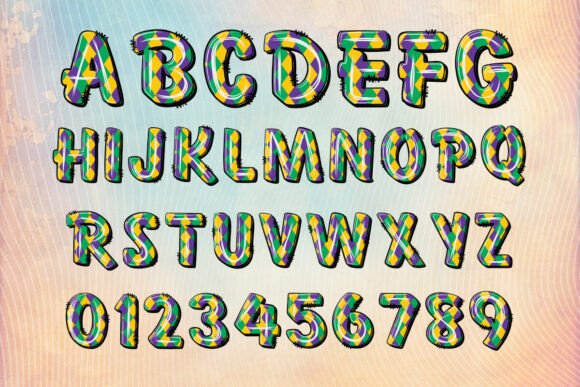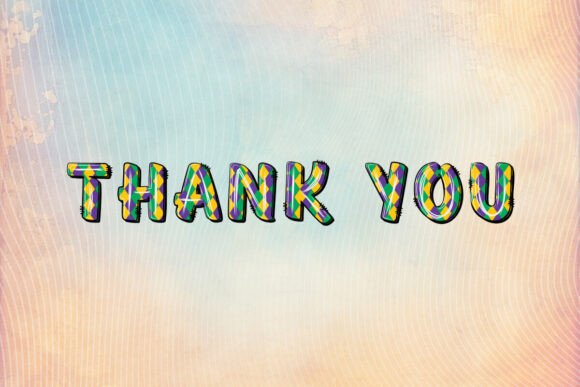
Introduction to Mardi Gras Alphabet Font
Have you ever found yourself staring at a blank canvas, eager to bring your creative vision to life? The thrill of designing a new project is exhilarating, but sometimes, all it takes is the right design resource to make it truly unforgettable. For designers, the Mardi Gras Alphabet Font is a game-changer – a high-quality, free download that infuses your typography with the vibrant spirit of celebration.
This enchanting font is a tribute to the Mardi Gras festival, with each alphabet and numeral blossoming in a beautiful and unique form. With its transparent background, you can easily layer it over any image or design element, adding an extra layer of depth and visual interest. Whether you’re working on a creative project or simply want to add a touch of Mardi Gras magic to your designs, this exquisite font is sure to delight.
So why settle for ordinary when you can have extraordinary? With the Mardi Gras Alphabet Font, you’ll be able to transport your audience to the vibrant streets of New Orleans, where the air is alive with music, laughter, and joy. Download this stunning font today and get ready to add a splash of Mardi Gras flair to your designs.
Key Features of Mardi Gras Alphabet Font
- High-quality design resource featuring a colorful and festive Mardi Gras theme
- Includes a range of Mardi Gras-themed letters and symbols, ideal for decorating invitations, party materials, and more
- Features a transparent background, making it easy to use in various design contexts
- Unique characteristics include bold, colorful designs and intricate details, perfect for adding a festive touch to any design
Honest Review: Mardi Gras Alphabet Font
I recently had the opportunity to use the Mardi Gras Alphabet Font in one of my design projects, and I must say it’s a unique and playful addition to any creative endeavor. ✨ The font’s vibrant colors and festive feel make it perfect for Mardi Gras-themed projects, but it can also be used in other contexts to add a touch of whimsy and fun.
The font comes with a transparent background, which makes it easy to place on any image or design element. This is a big plus, as it gives designers the flexibility to use the font in a variety of creative ways.
Here are some of the key features of the Mardi Gras Alphabet Font:
- Perfect for Mardi Gras-themed projects or any other creative project that needs a playful touch
One thing to keep in mind is that the font is a bit limited in terms of its versatility. ⚠️ While it’s perfect for certain types of projects, it may not be the best choice for more serious or professional designs. Additionally, some users may find the font’s bright colors to be overwhelming or distracting.
Overall, I would recommend the Mardi Gras Alphabet Font to designers who are looking for a fun and creative way to add some personality to their projects. Just be sure to use it in the right context and with the right design elements to get the most out of it.
The Mardi Gras Alphabet Font is ideal for use in party invitations, social media graphics, and other creative projects that require a fun and festive touch. You can also use the font to add a unique element to your branding or marketing materials.